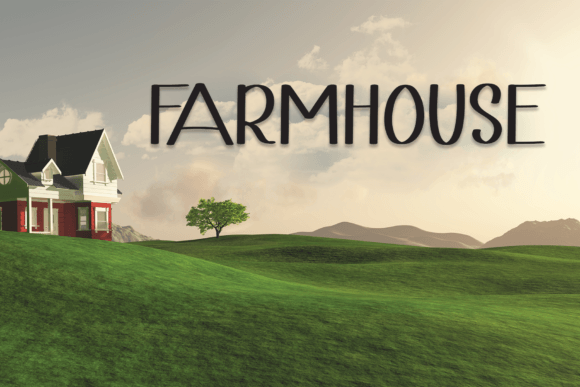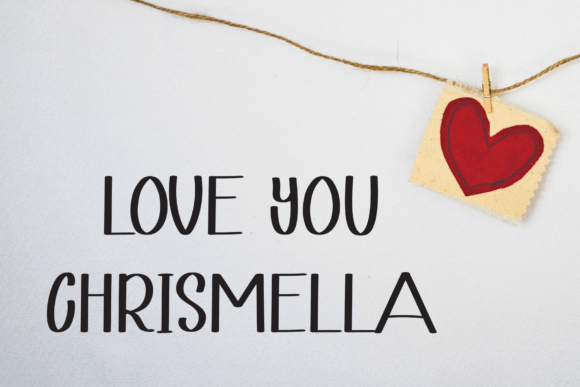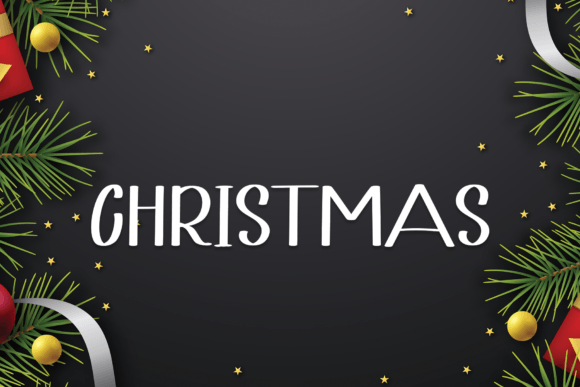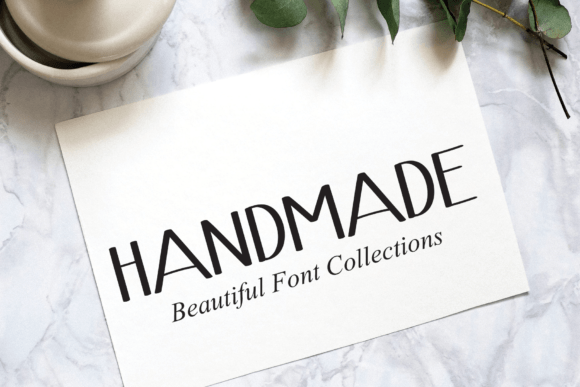
The Perfect Beach Getaway for Your Next Design Project
Do you remember that moment when you stumbled upon the perfect font to elevate your design project? The feeling of excitement and relief that comes with finding the perfect combination of style and functionality is hard to beat. For designers, finding that perfect font can make all the difference between a good design and a great one.
Enter the Beach Paradise Font, a fun and friendly handwritten font that’s perfect for any occasion. Whether you’re creating crafts, digital designs, presentations, or greeting cards, this font has the potential to become your favorite, whatever the occasion. Its playful and approachable nature makes it a valuable asset for designers looking to add a personal touch to their work.
Beach Paradise Font Key Features
- Font Family: Beach Paradise Font is a unique, hand-drawn font designed to evoke the feeling of a tropical paradise.
- Unique Characteristics: The font features a distinctive, hand-drawn style with intricate details and subtle texture, giving it a natural, organic feel.
- Character Set: Includes a comprehensive character set, including uppercase and lowercase letters, numbers, and punctuation marks, making it suitable for a wide range of applications.
Beach Paradise Font Review
Overall, I think the Beach Paradise Font is a solid addition to any designer’s toolkit. Here are a few things that I think work well: ✨
- Relaxed and casual vibe: The font’s beachy feel makes it perfect for projects that require a laid-back, summery aesthetic.
- High-quality glyphs: The font includes a wide range of characters, including accents and punctuation, which ensures that it’s suitable for most design applications.
- Easy to read: Despite its casual feel, the font is surprisingly easy to read, even at smaller font sizes.
However, there are a few limitations to keep in mind: ⚠️
- Not ideal for formal projects: While the font is great for casual projects, it may not be the best choice for formal or professional designs.
- Limited font weights: The font only comes in a few weights, which may limit its versatility in certain design applications.
Overall, I think the Beach Paradise Font is a great choice for designers who need a fun, casual font for their projects. While it may not be suitable for every design application, it’s definitely worth considering for projects that require a relaxed, beachy vibe.
Use the Beach Paradise Font for creating tropical-themed graphics, such as beach invitations, postcards, and social media graphics.
Use the Beach Paradise Font for creating custom beach-themed graphics, such as beach-themed logos, icons, and illustrations.
Use the Beach Paradise Font for creating beach-themed presentations, reports, and documents.
Use the Beach Paradise Font in combination with tropical-themed graphics and colors to create a cohesive design.
Experiment with different font sizes and styles to add visual interest to your design.
Use the Beach Paradise Font for creating a consistent brand identity.
Beach-themed graphics, such as beach invitations, postcards, and social media graphics.
Custom beach-themed logos, icons, and illustrations.
Beach-themed presentations, reports, and documents.